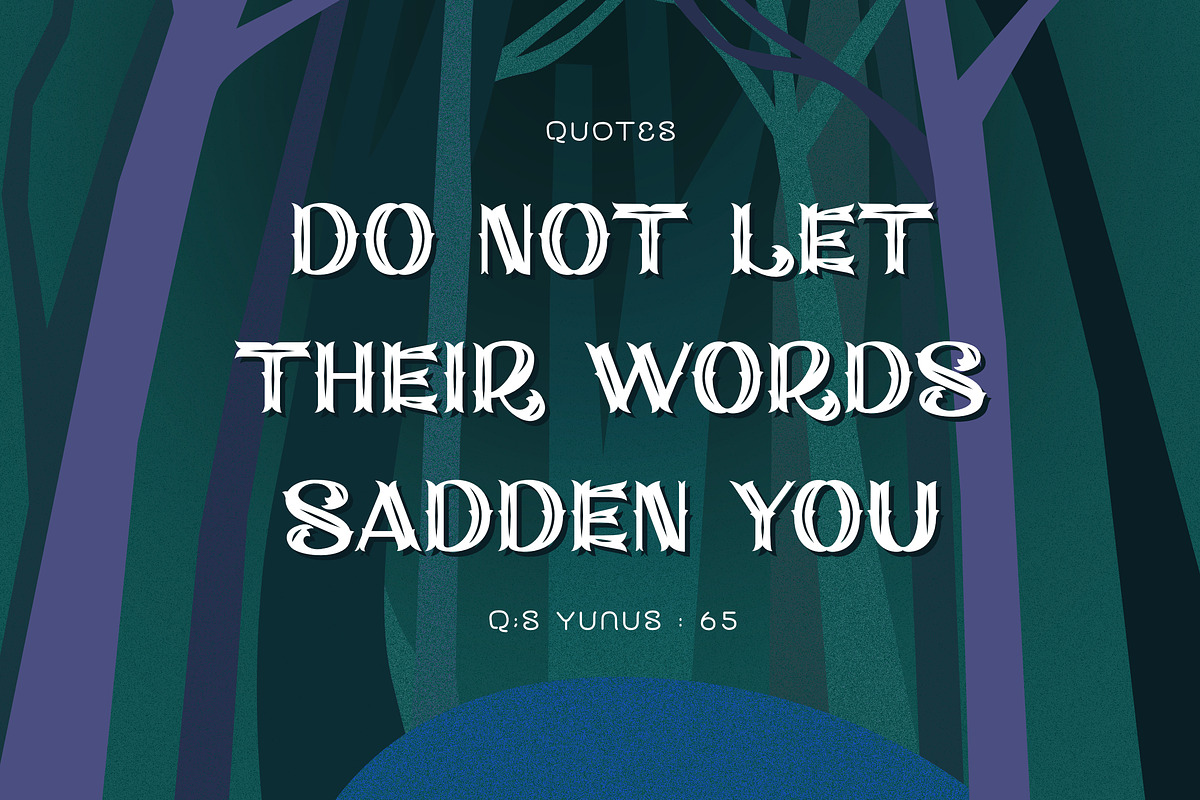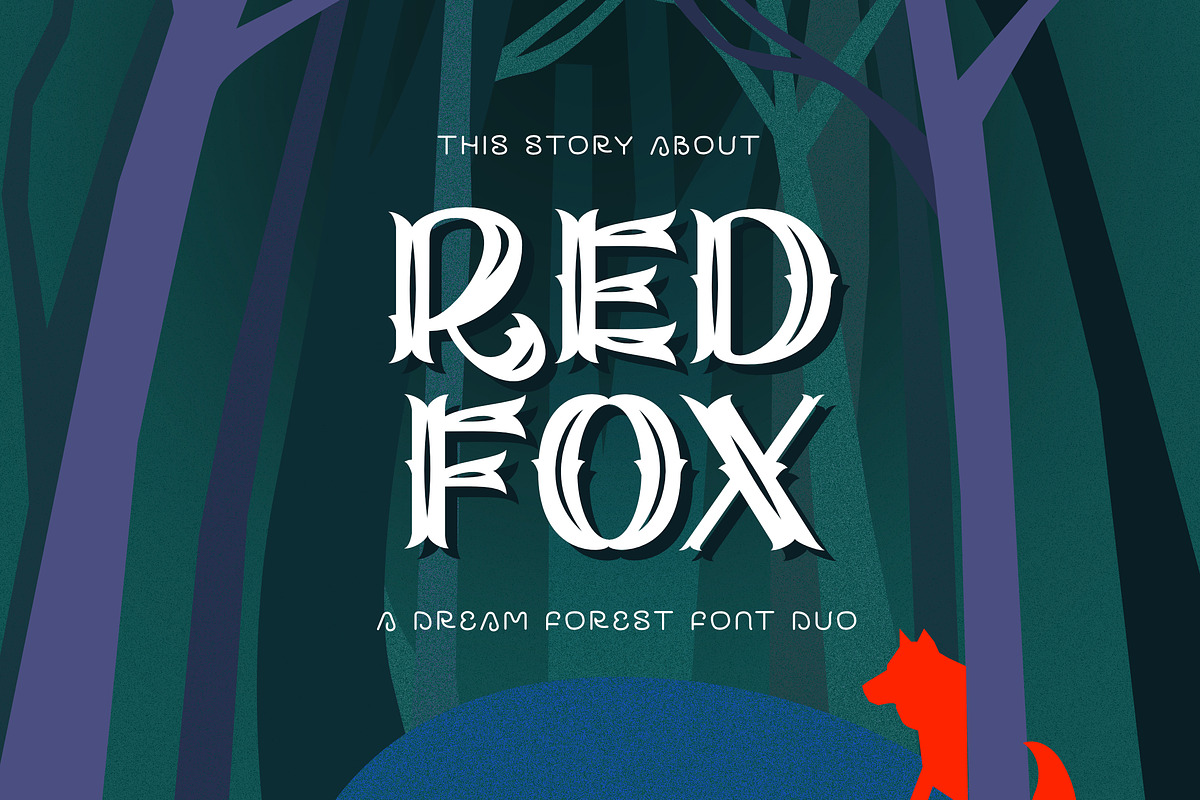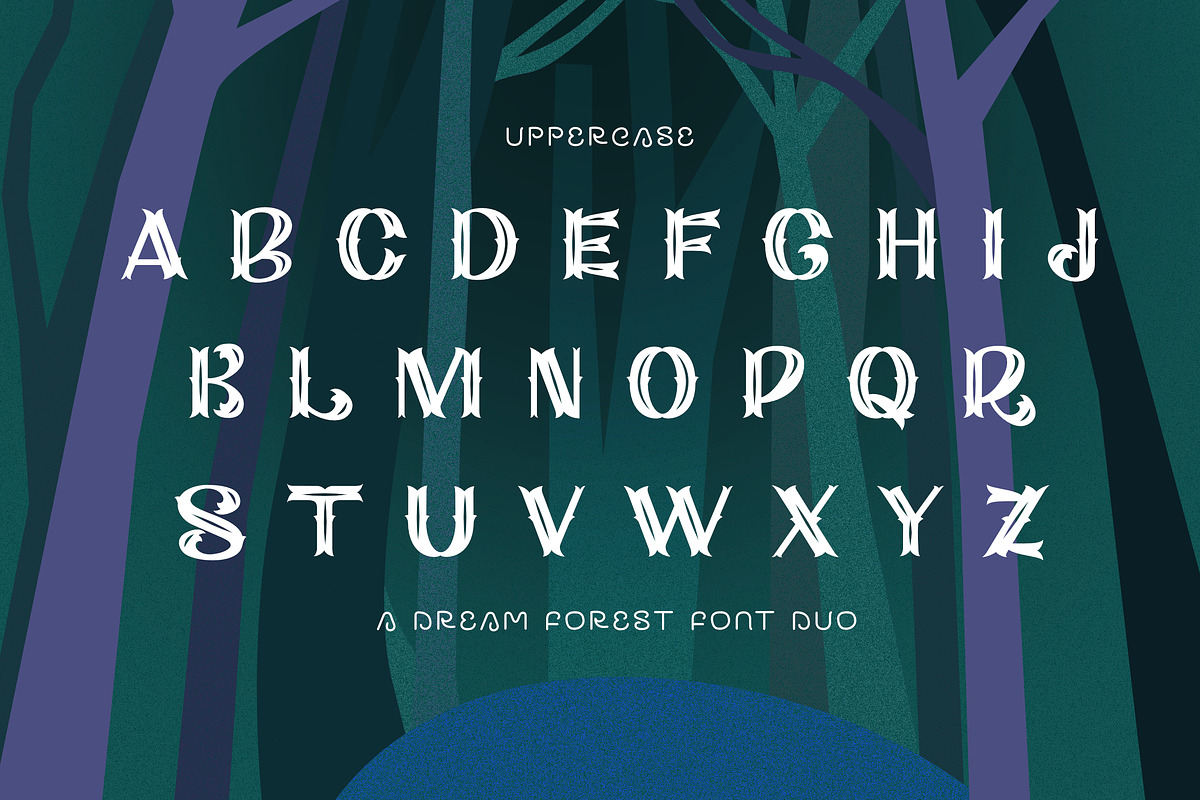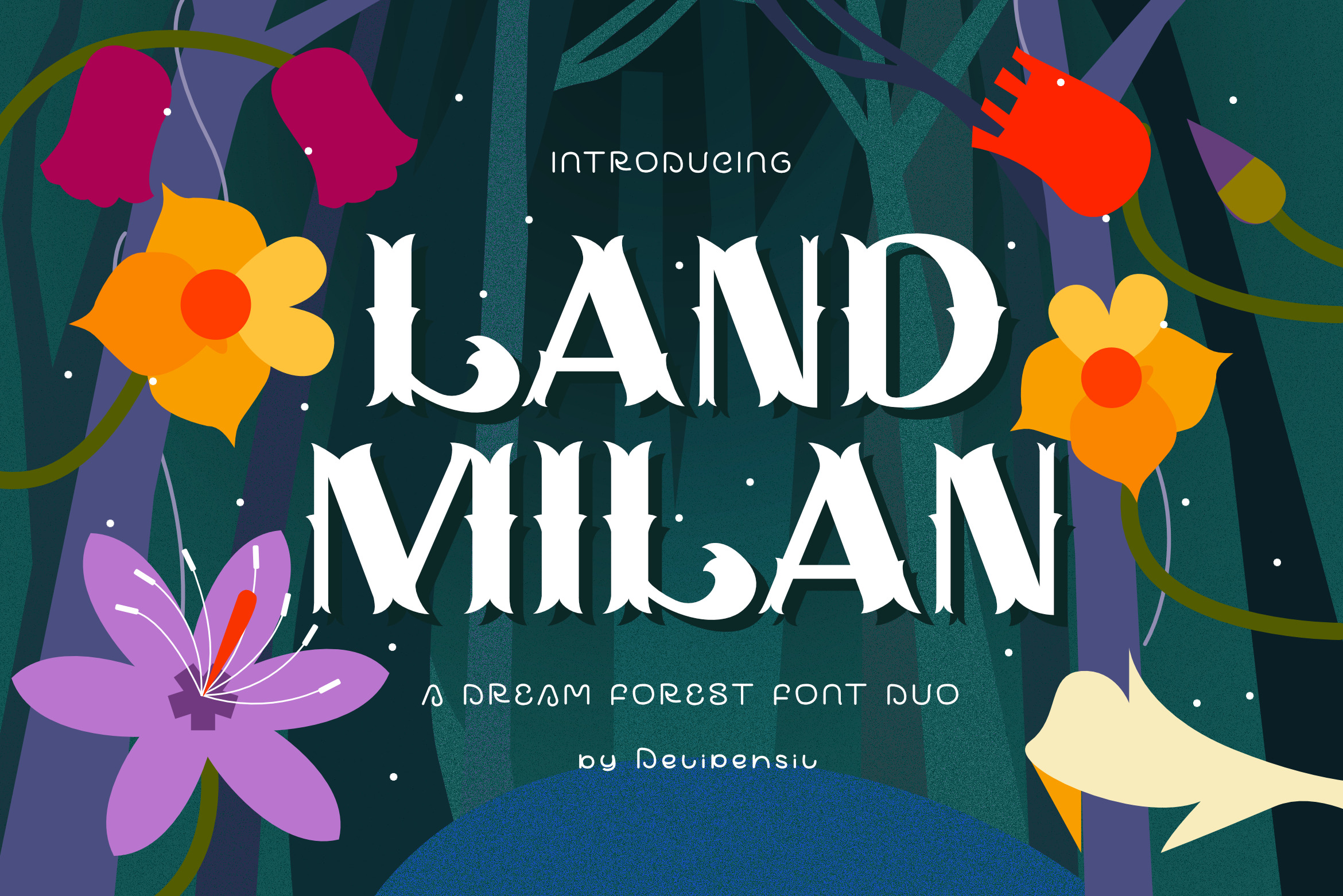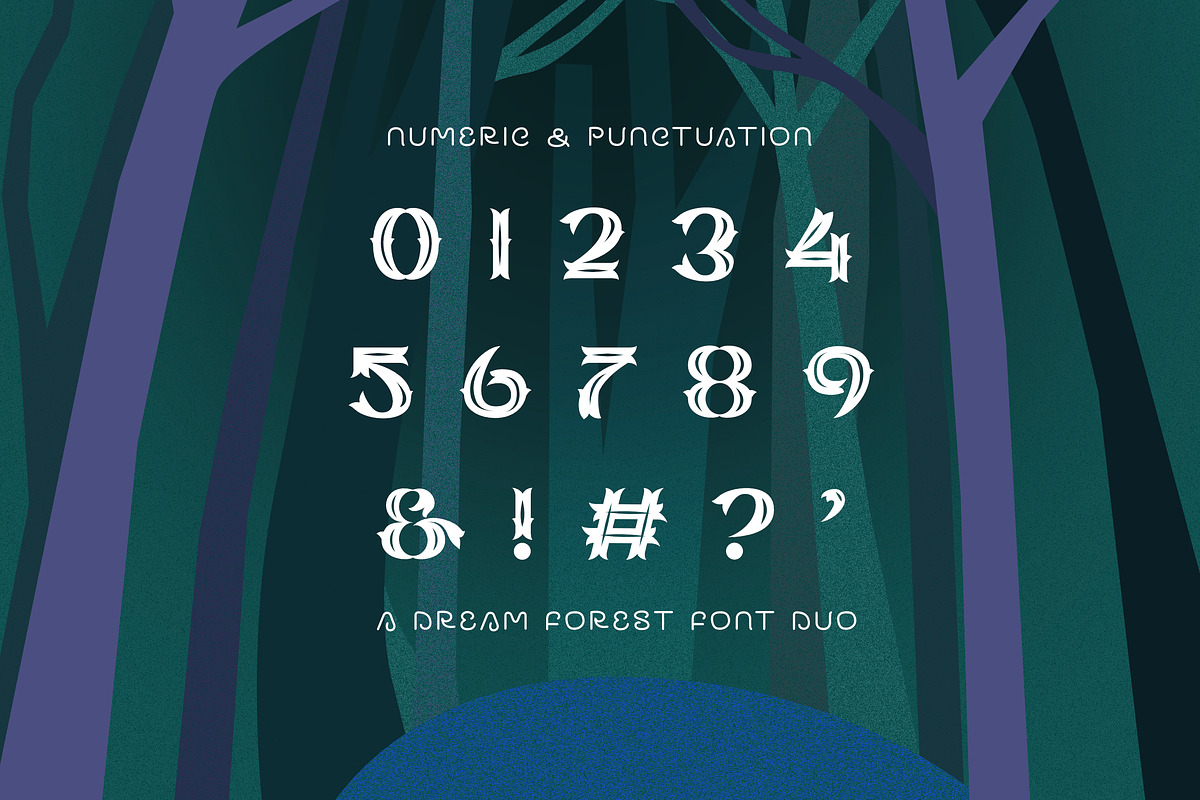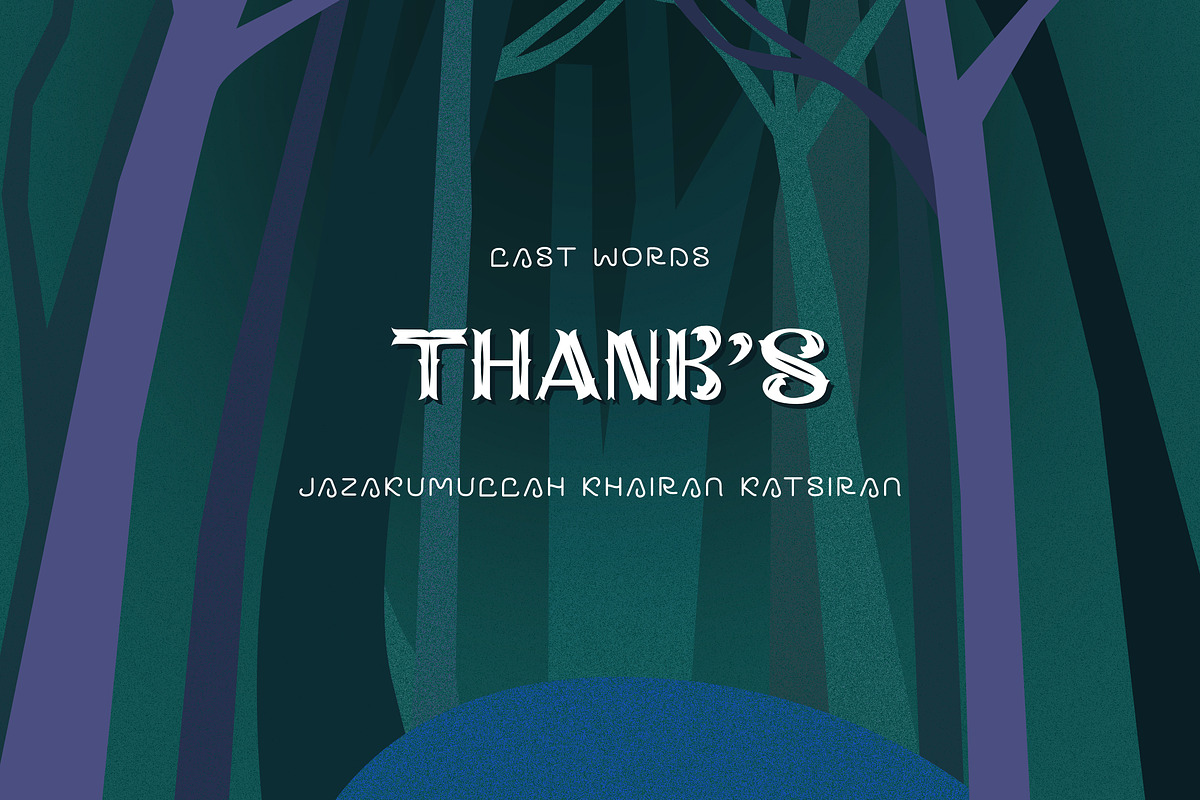
Landmilan Forest Duo Font
Bismillah, Introduction Landmilan - Forest Duo Font
Beauty Serif font, clean classic and mindful , it combine in one font, use this font for anything beauty place for your logo, headline, cover book, magazine and many more
- Landmilan Font Style
- Landmilan Numeral & Punctuation
- Landmilan Kerning Style
- Landmilan Duo Font Style